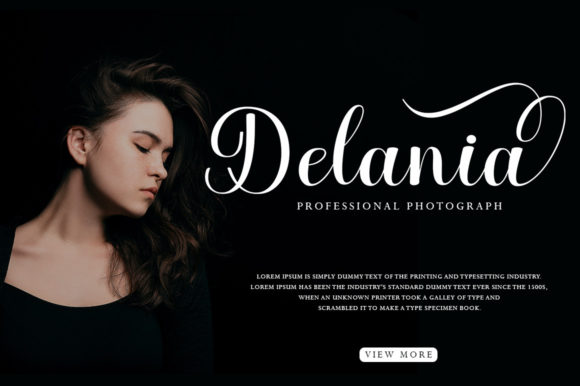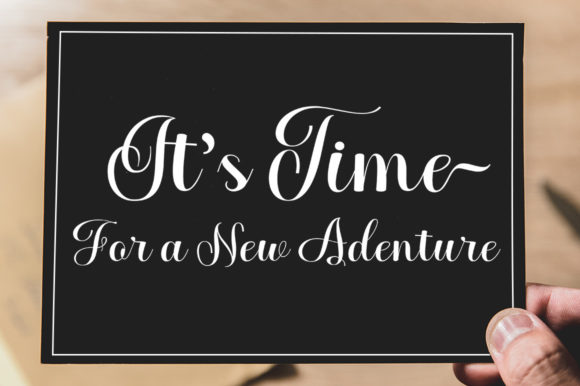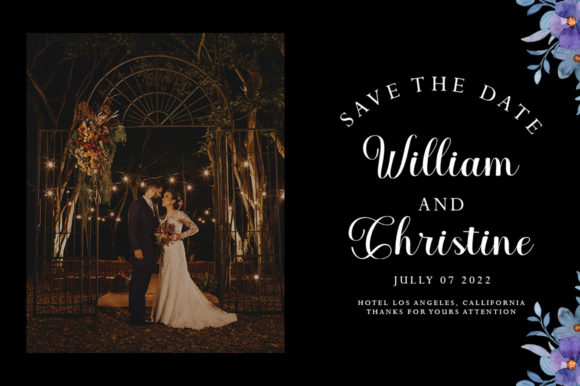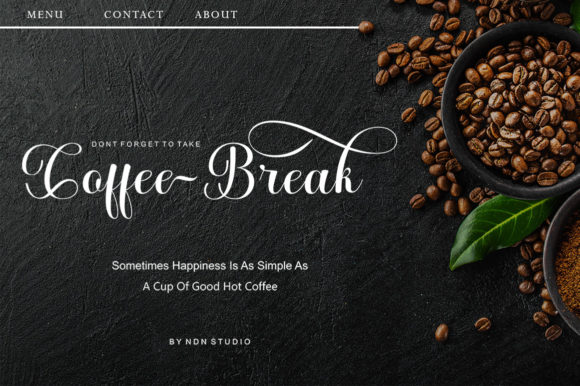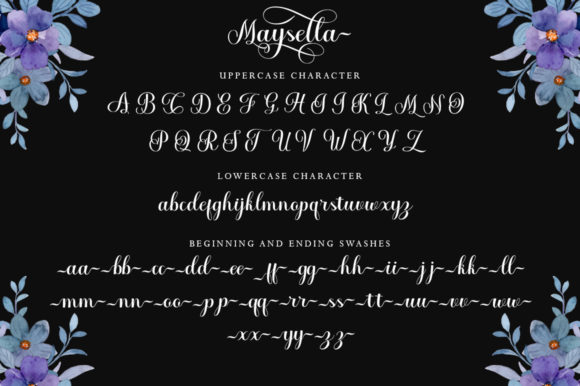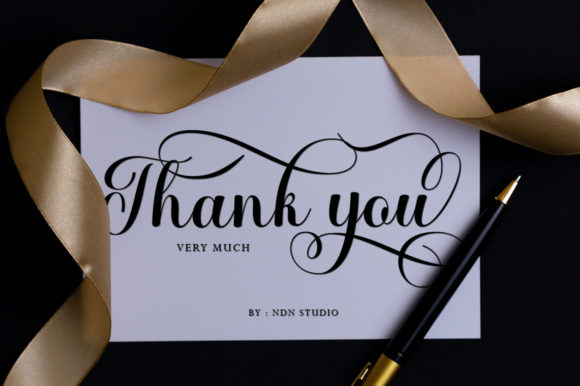
Maysella Font
About Maysella Font
Maysella is a script font that exudes delicacy and modern fashion. With its graceful and well-crafted characters, it serves as an ideal choice for various branding projects. Whether you’re designing a captivating logo, creating striking t-shirt prints, or developing innovative creative products, Maysella’s versatility shines through, infusing your work with an air of elegance.
The font’s delicate nature makes it well-suited for projects that require a touch of sophistication and refinement. Its fashionable style adds a contemporary twist to your designs, allowing them to make a lasting impact. Maysella’s distinctive and captivating form brings a unique charm to any branding endeavor.
An exceptional feature of Maysella is its PUA encoding, which grants effortless access to a wide range of glyphs and swashes. This feature empowers you to explore various design possibilities and tailor your creations to perfection. Whether you’re embellishing a logo with ornamental elements or adding a stylish touch to your t-shirt designs, Maysella’s PUA-encoded glyphs and swashes offer you the creative freedom to bring your artistic vision to life.
As you integrate Maysella into your design projects, you’ll discover its adaptability and potential to elevate a diverse range of endeavors. Its blend of delicate elegance and contemporary fashion makes it a versatile asset in your design arsenal. From logos to apparel and beyond, Maysella’s ability to infuse your projects with sophistication and allure is certain to captivate your audience and enhance your brand’s visual identity.